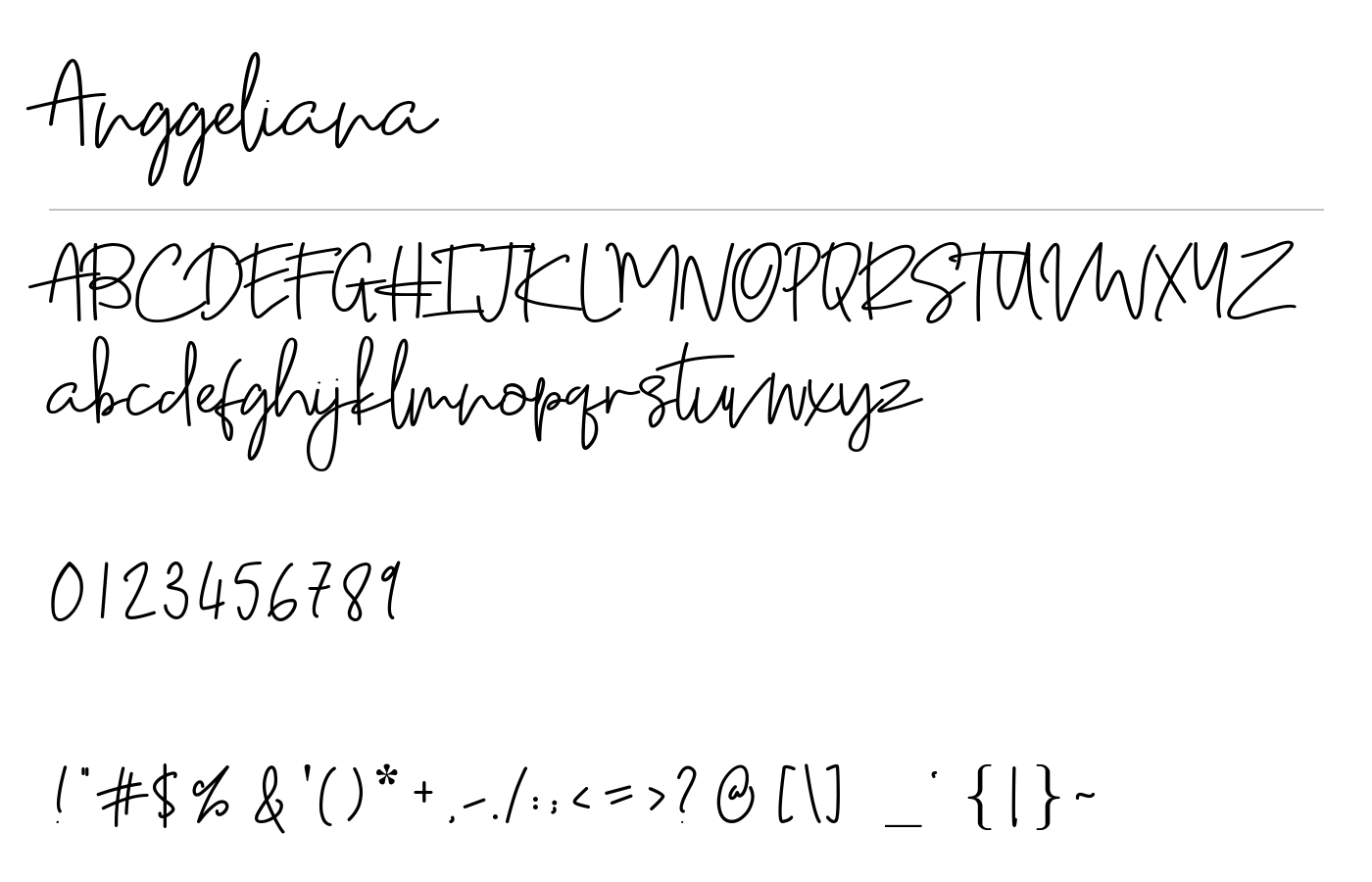
Anggeliana is a delicate, handwritten script font with a light, airy feel that combines casual elegance with a modern touch. Its slender, flowing letterforms, featuring varied stroke widths and natural curves, make it perfect for adding a personal, friendly vibe to invitations, branding, and social media graphics. This font works especially well in creative and lifestyle contexts where a warm, approachable style is desired.
Anggeliana Font
About Anggeliana Font